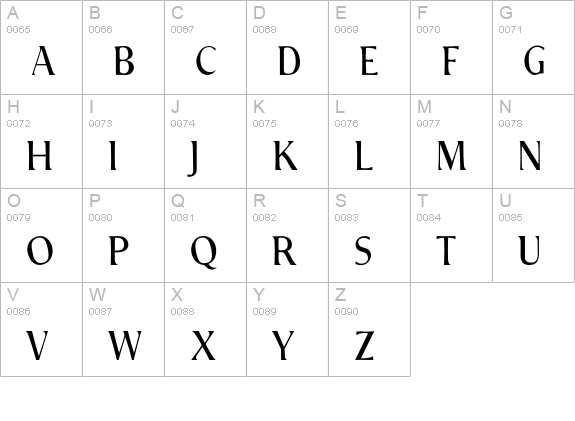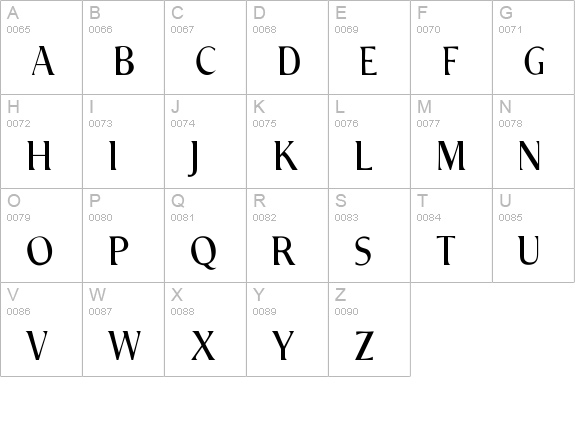
Priscilla font is a modern and elegant typeface that combines classic style with a contemporary twist. Its fluid lines and sophisticated curves give any design a touch of sophistication and class. This versatile font is perfect for a wide range of projects, from branding and marketing materials to invitations and social media graphics. What makes Priscilla font even more appealing is that it is available for free download at FontsMarket.com. Yes, you read that right - you can easily access this beautiful font at no cost, making it a valuable addition to any designer's toolkit. Don't miss out on the opportunity to enhance your projects with the timeless beauty of Priscilla font. Download it now and let your creativity shine!